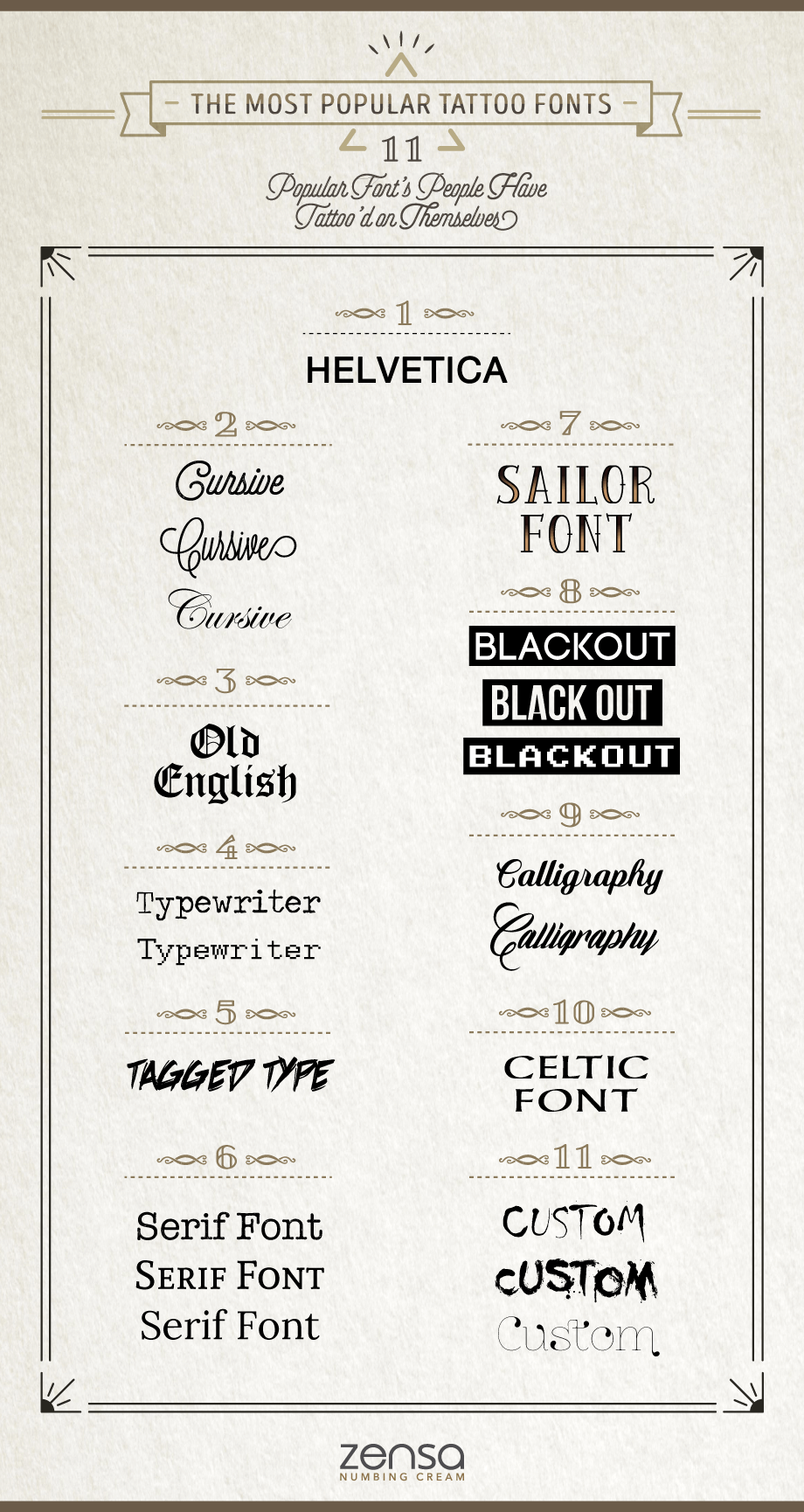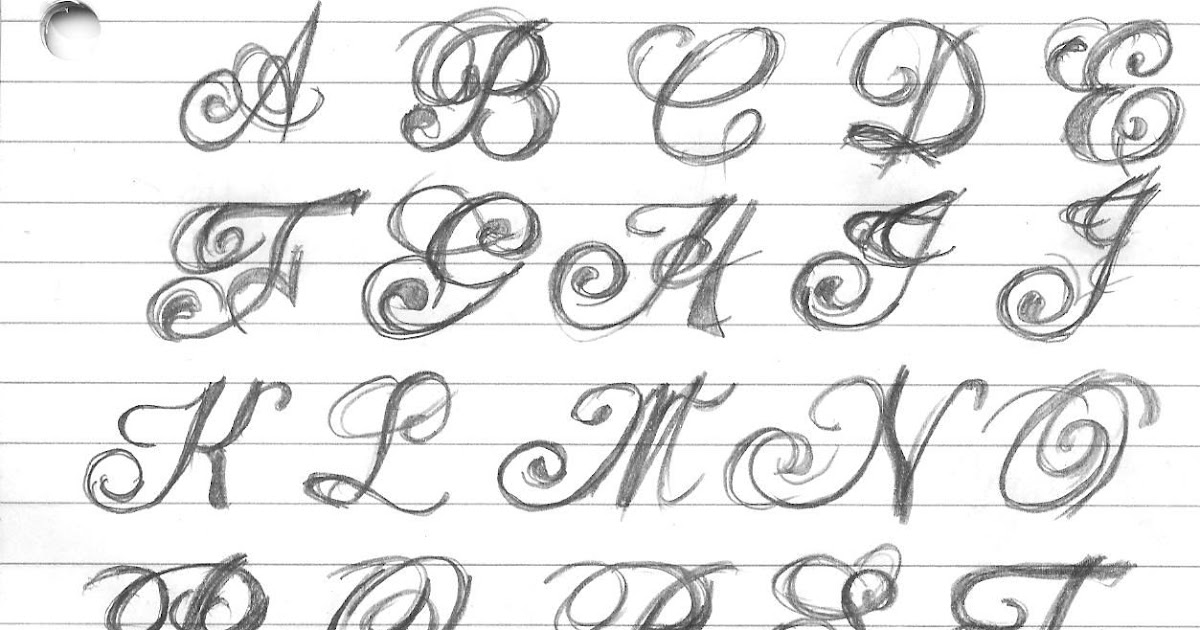
80 Faith Tattoo Schriftart
Most tattoos that people dedicate to faith tend to have the actual word faith in it. Faith tattoo gallery est.
Faith tattoo schriftart. Some people add other elements that are significant to the faith tattoo to make it more special and more personal. 2005 in historic golden co family owned family friendly single use vegan tattooing in an eco friendly environment. Picking a font for your next tattoo is a very important decision.
Lettering styles include tribal traditional sailor blackletter fancy cursive script etc. I have been designing lettering for over 20 years now. Here is a look at the variations of the faith.
10 11 2018 erkunde mischi staus pinnwand ziffern tattoos auf pinterest. Apr 5 2016 word faith in various fonts google search. The difference in the design may come due to the actual font that is used to write the word.